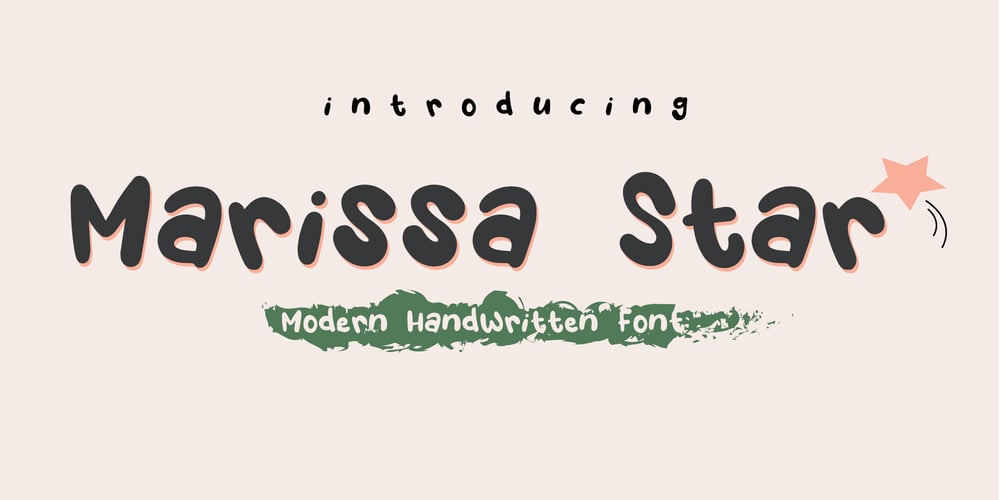
Marissa Star Font Family was designed by akhmad rizki cahyadi and published by Mazkicibe. Marissa Star contains 1 styles and family package options. Marissa Stars is a modern handwritten font, that feels equally charming and delicate. This font is PUA encoded which means you can access all of the glyps! This font perfect for Crafting, DIY, Silhouette, Cricut, apparel, Fashion and many more.I hope you enjoy this font. If you have any questions please don’t hesitate to drop me a message.Thank You,